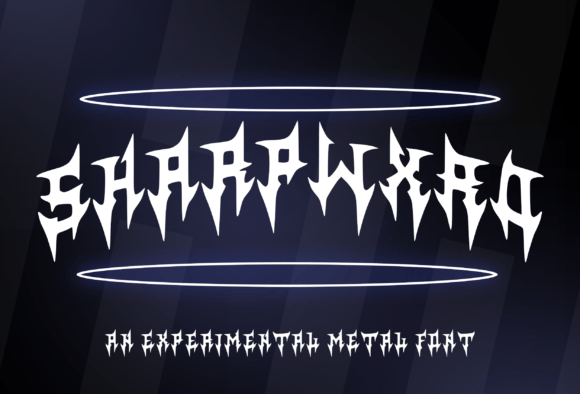
Are you in search of the perfect font to amplify the impact of your rock or heavy-metal-related projects? Look no further! Introducing Sharpwxrd, the ultimate font that combines edgy aesthetics with a touch of uniqueness. Created by the talented Artruk13, this experimental metal font is guaranteed to captivate and inspire.
Sharpwxrd is more than just a font – it's a powerful tool that will elevate your display boards, posters, album covers, and more to a whole new level. With its bold and striking design, this font demands attention and leaves a lasting impression on anyone who lays eyes on it.
Immerse yourself in the cool vibes that Sharpwxrd exudes. Its sharp and angular letterforms perfectly embody the spirit of rock and heavy-metal music. Each character is meticulously crafted to evoke a sense of power and intensity, making it an ideal choice for conveying your message with a punch.
What sets Sharpwxrd apart from other fonts is its ability to evoke emotion. Its raw and aggressive nature stirs up feelings of rebellion, energy, and passion. This font speaks directly to the soul of true music enthusiasts and rebels at heart. Let it be the voice of your artistic expression and set your projects apart from the crowd.
With Sharpwxrd, you have the freedom to experiment and unleash your creativity. Whether you're designing a band logo, creating merchandise, or crafting a visually compelling website, this font will effortlessly enhance your visuals and make them stand out. Its versatility allows it to adapt to various design styles, ensuring a seamless integration into your projects.
Don't settle for generic and uninspiring fonts. Choose Sharpwxrd and let your projects roar with fierce individuality. Unleash the rebel within and leave a lasting impression on your audience. Get ready to rock the design world with Sharpwxrd!